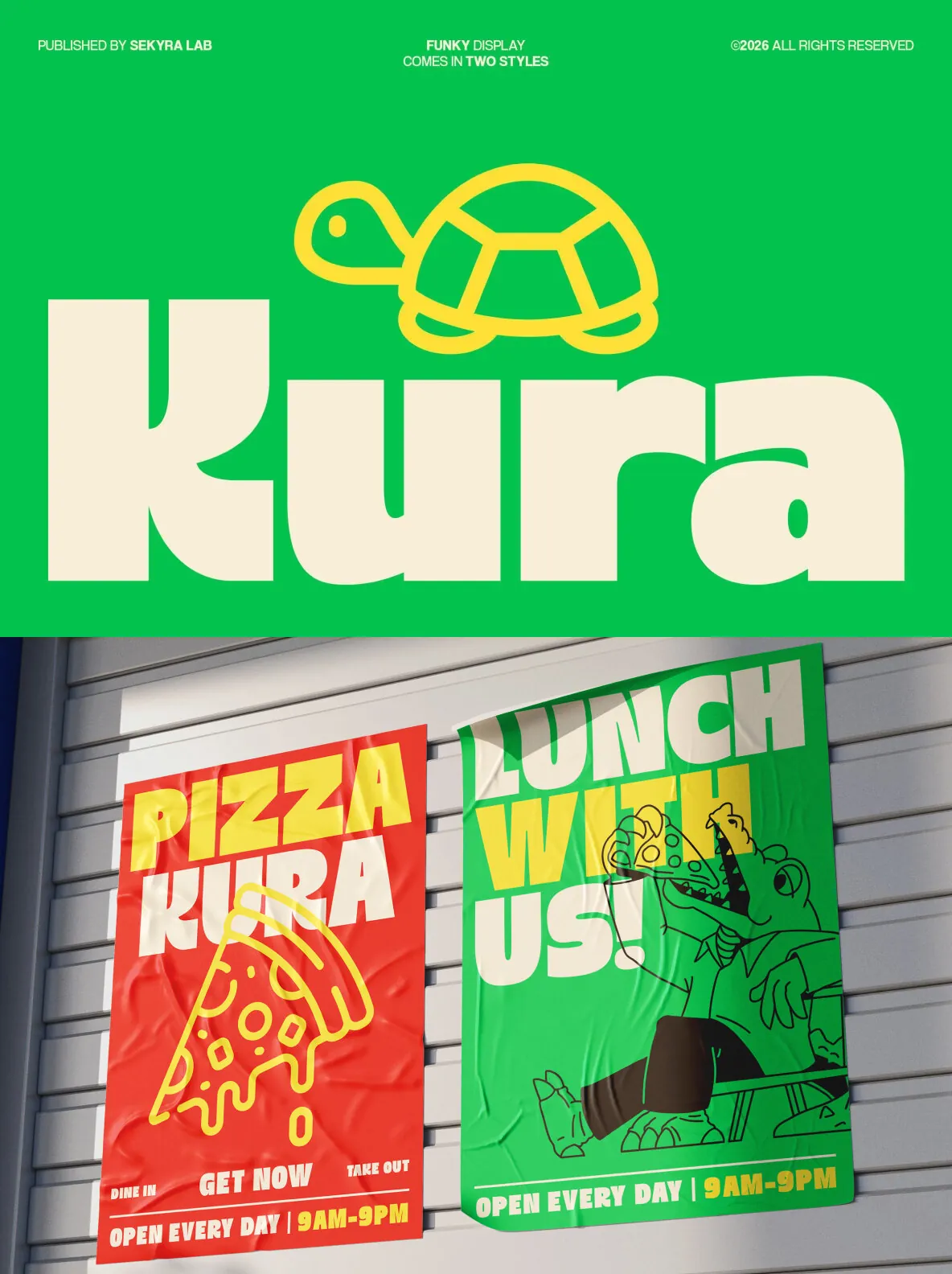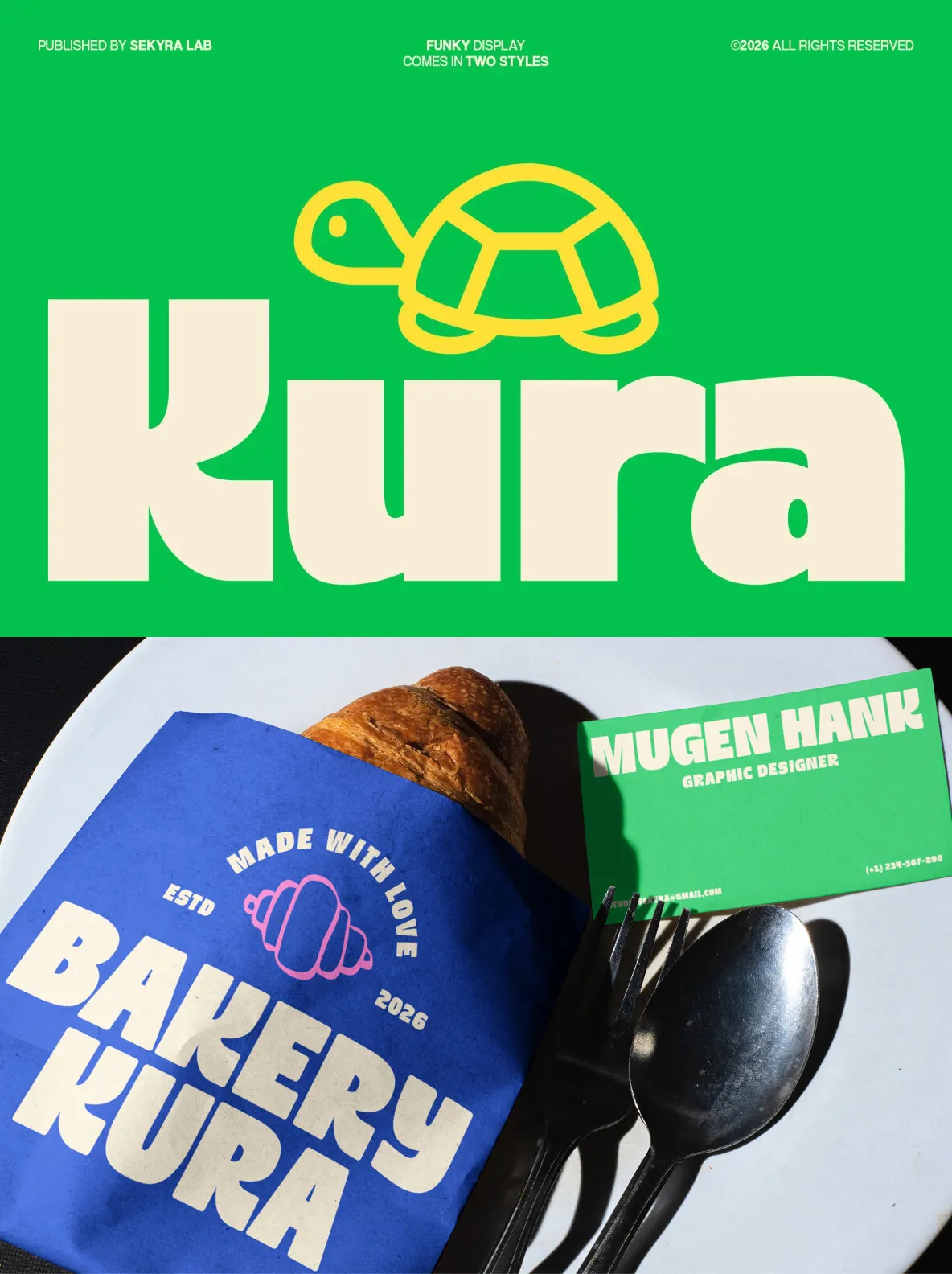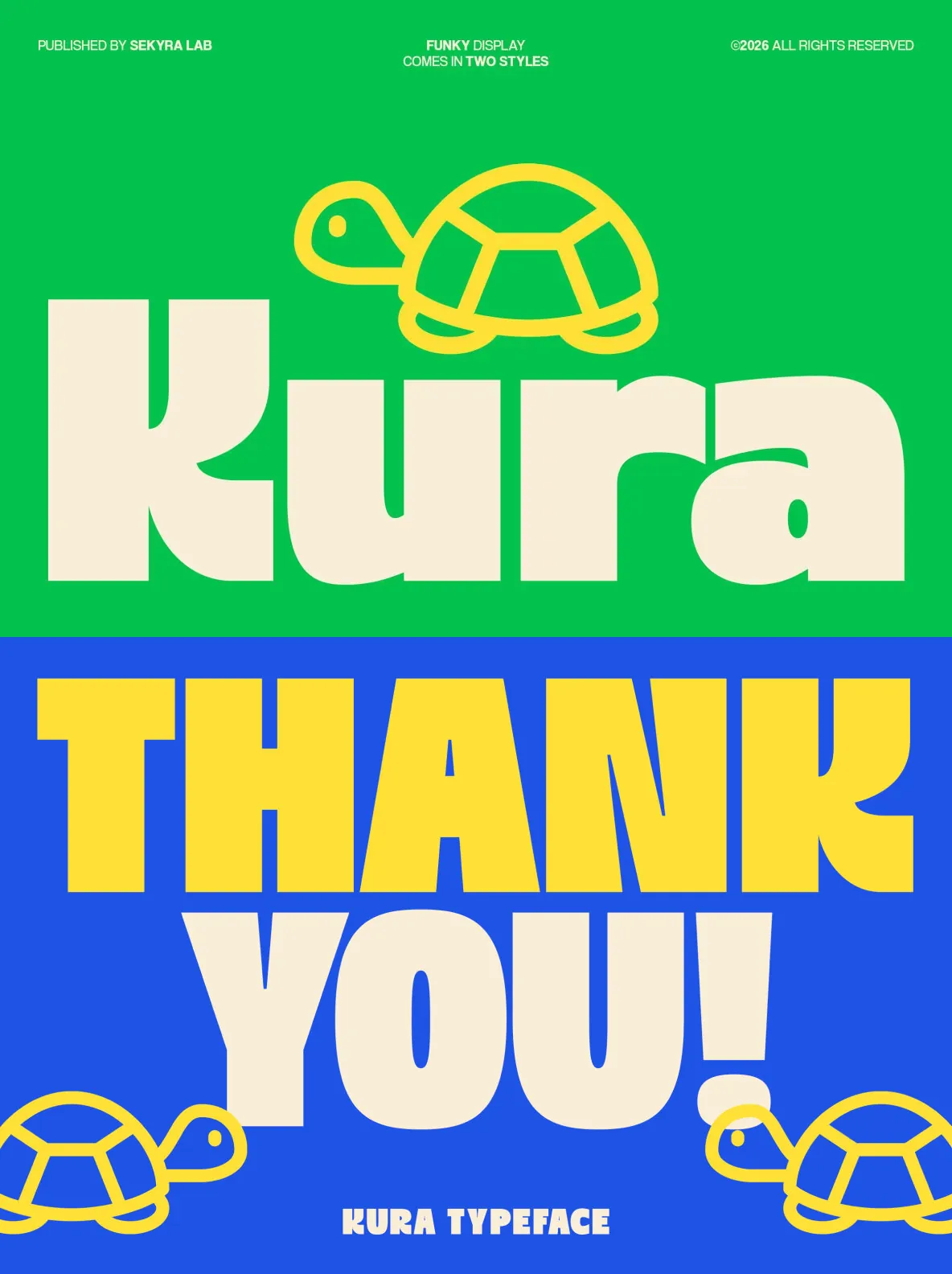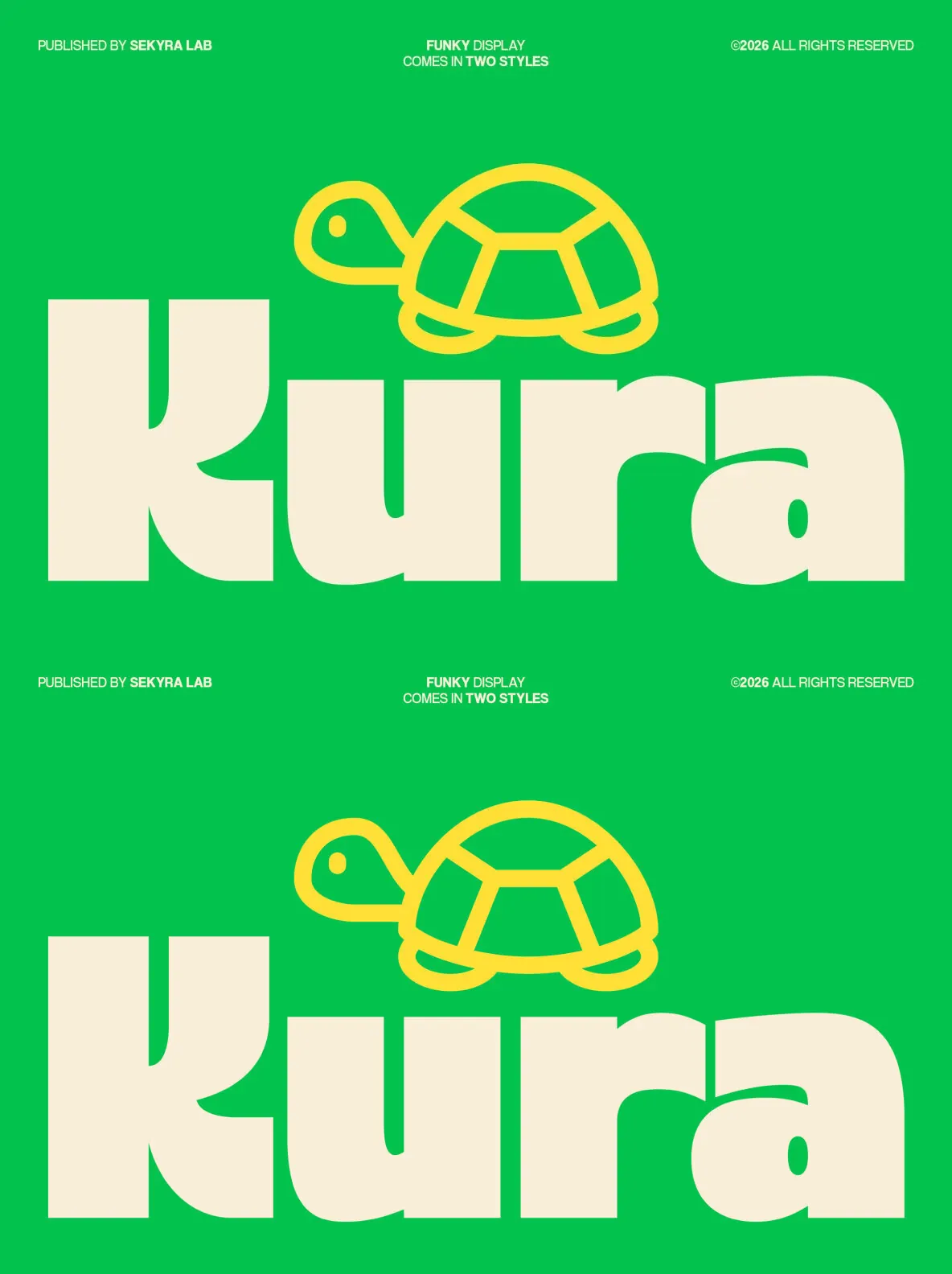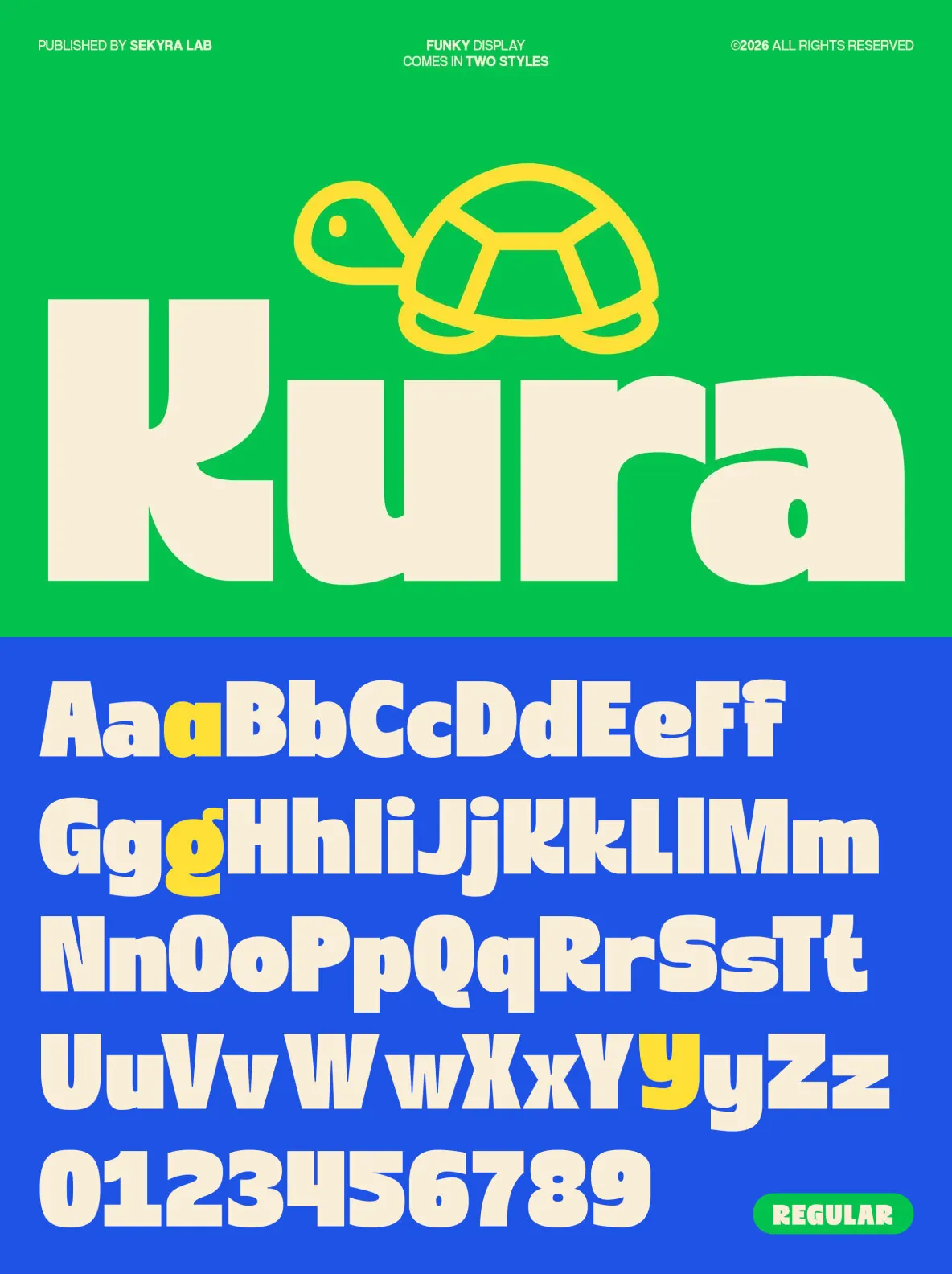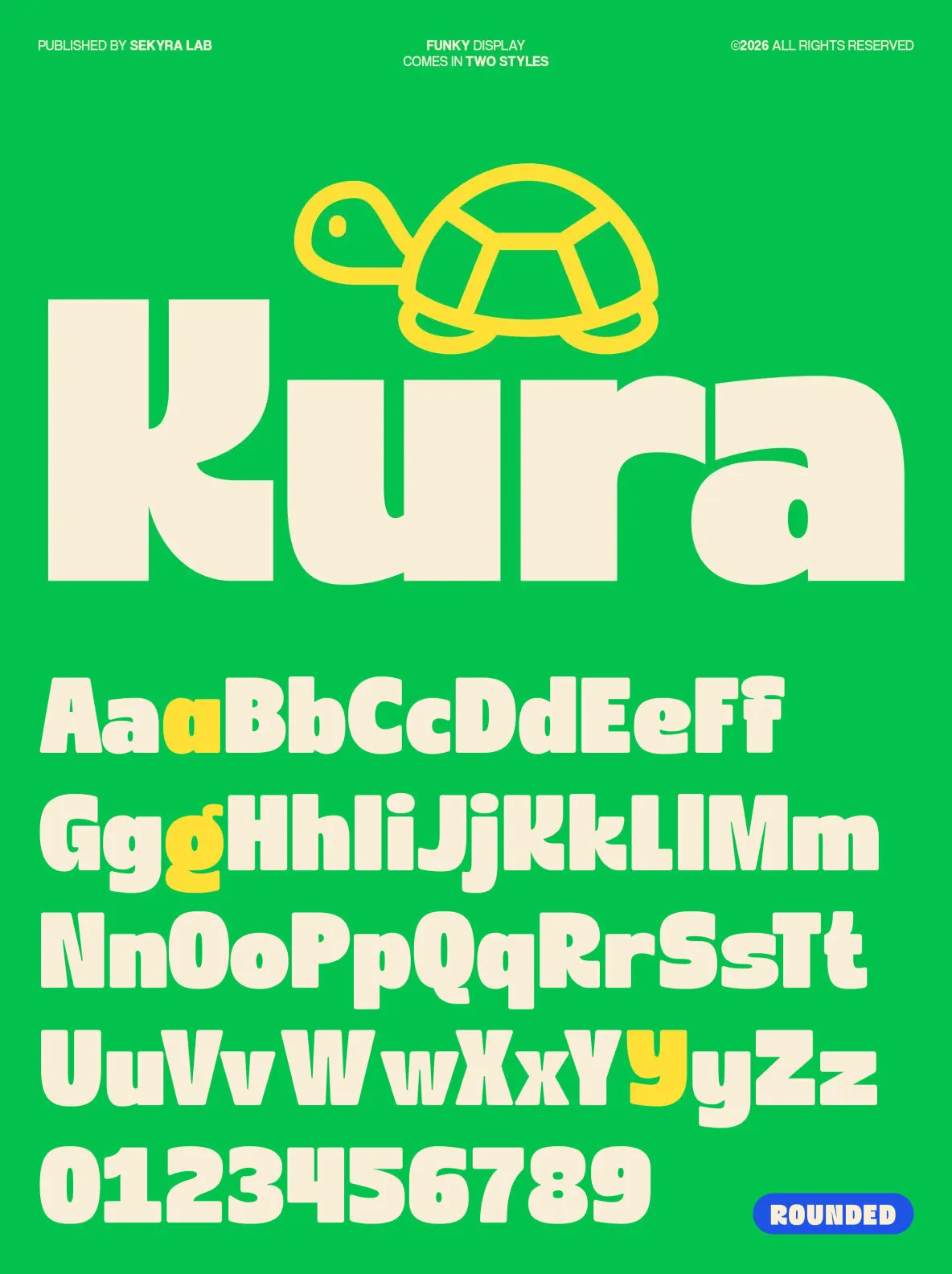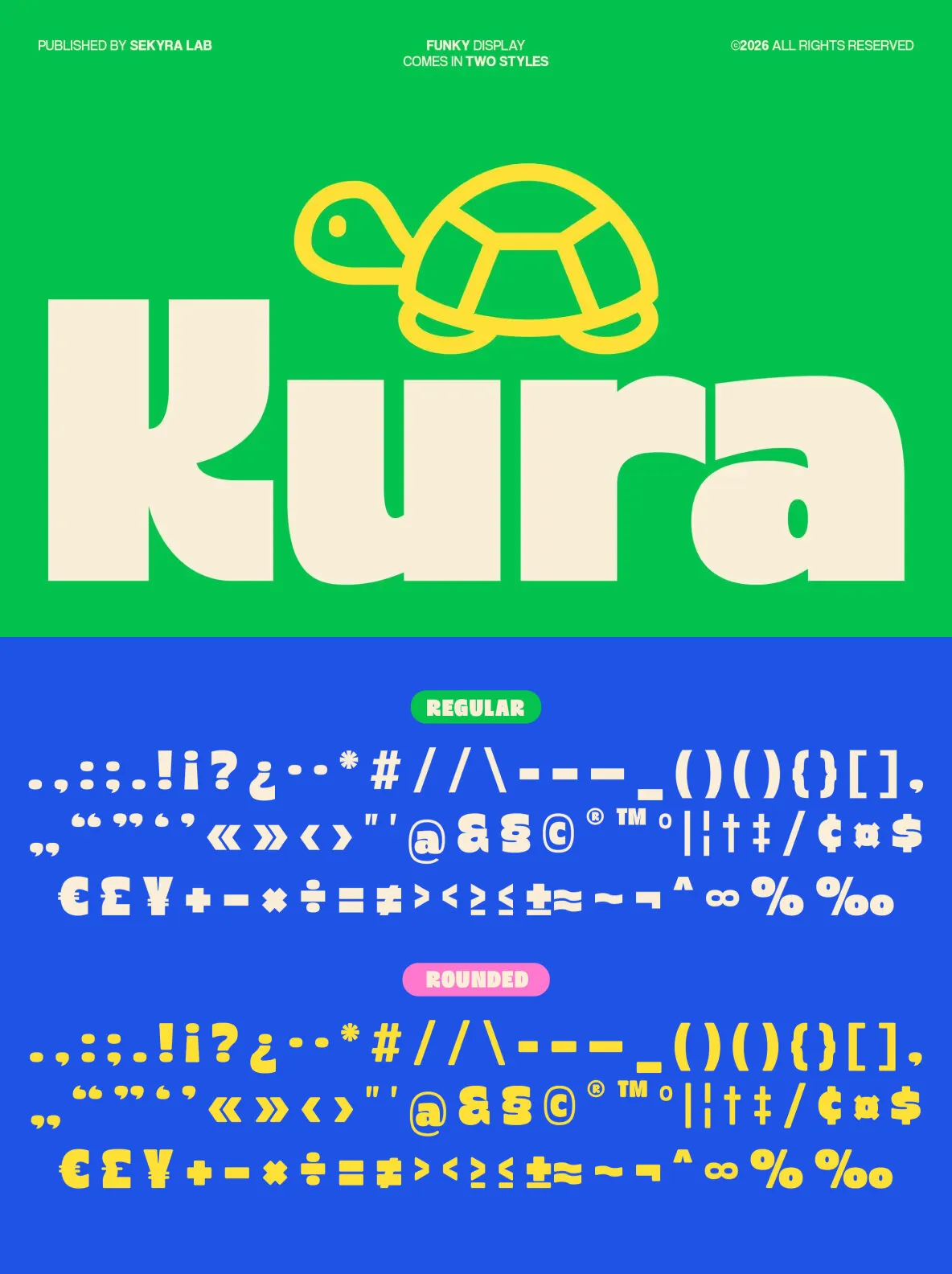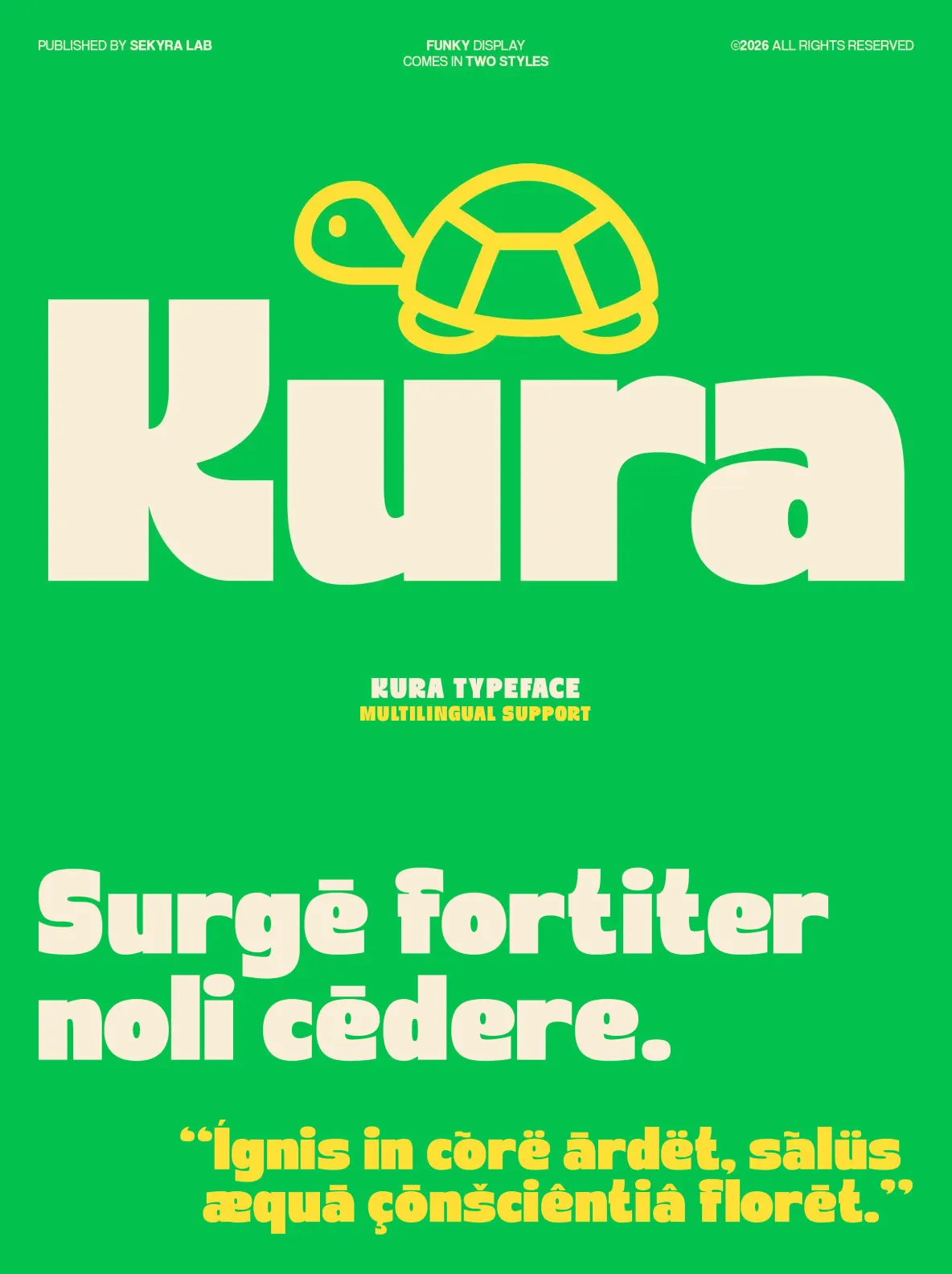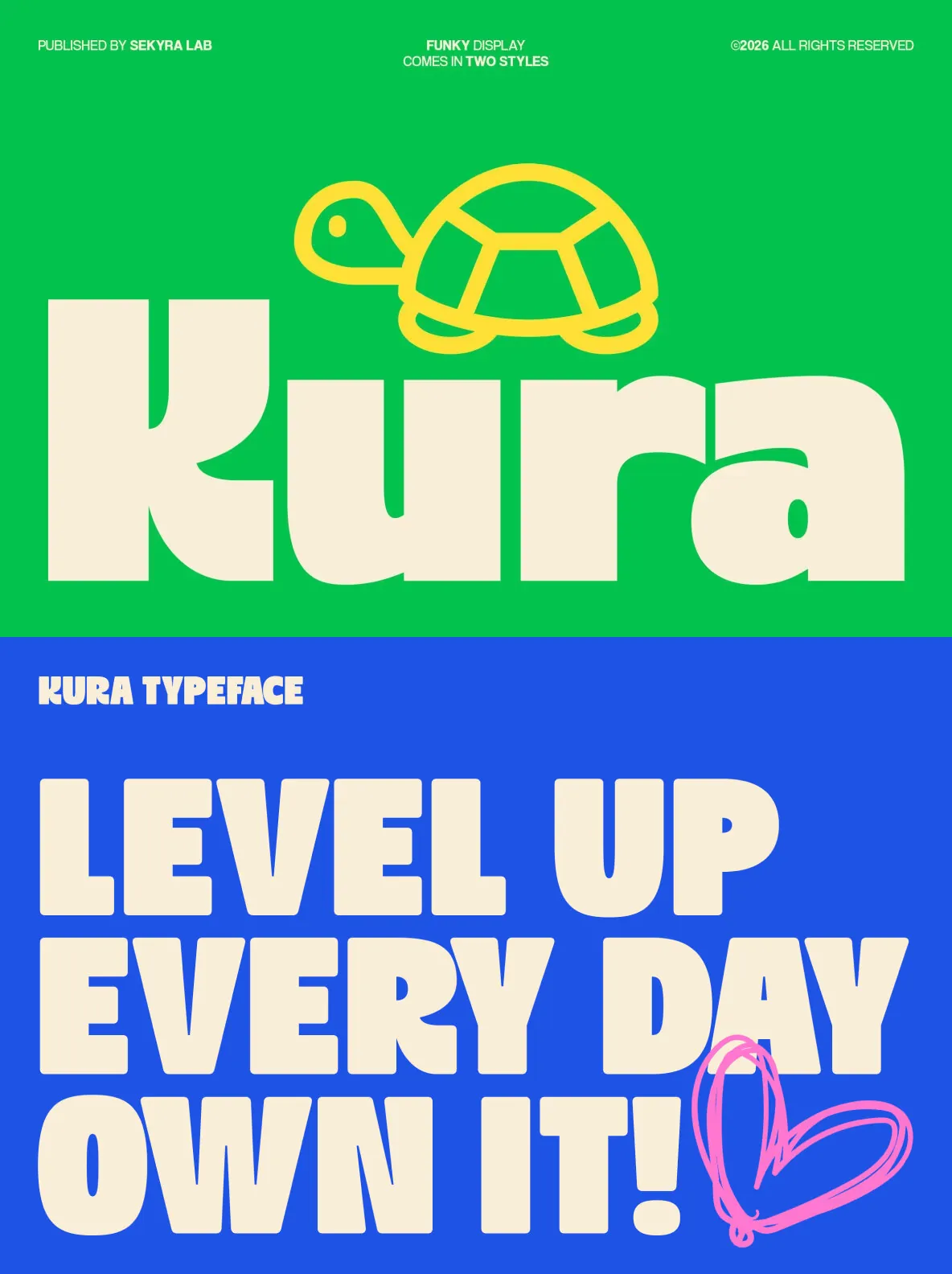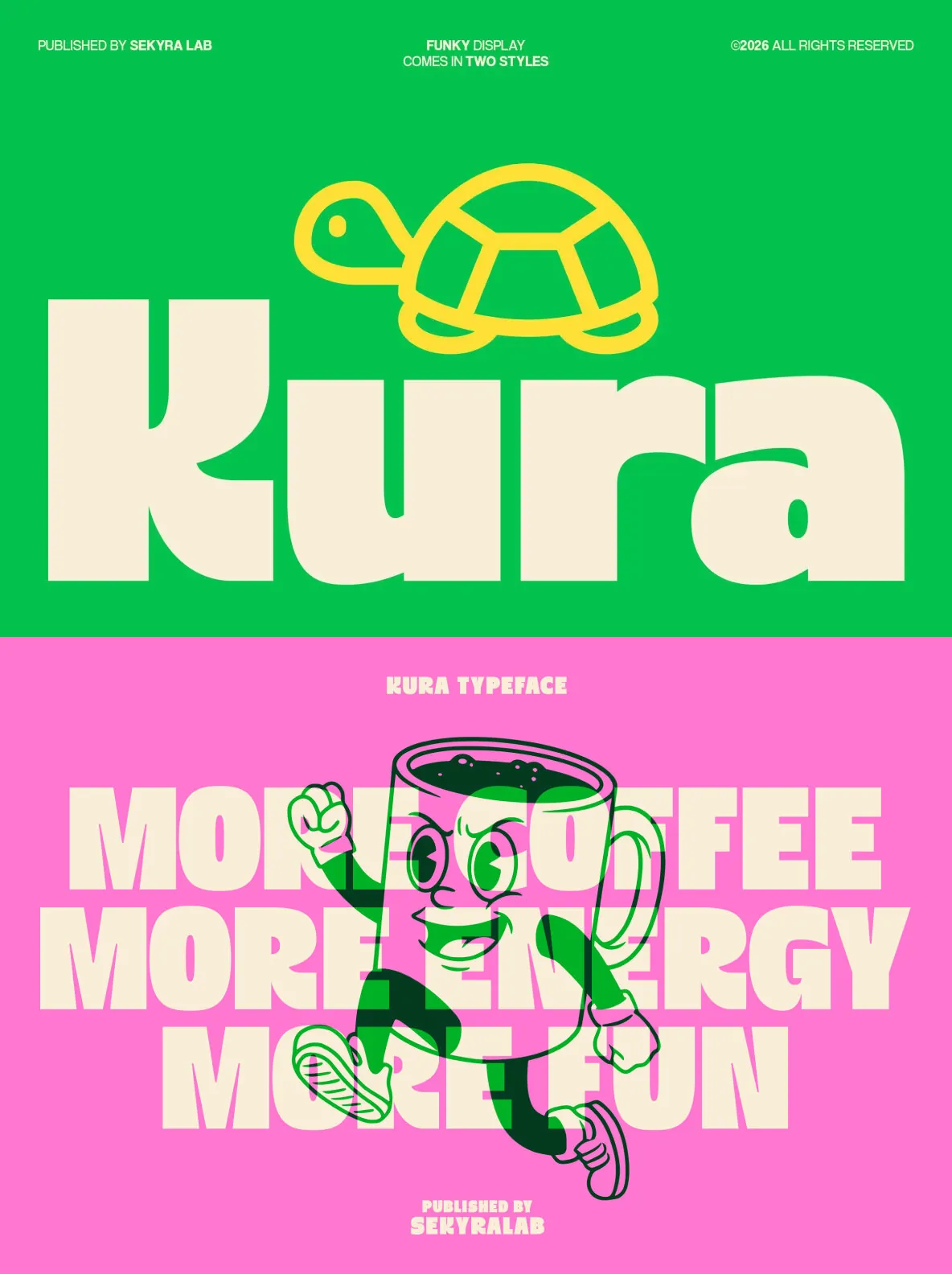
Kura: Bold Display Typeface in Regular and Rounded Styles
Kura is a bold display typeface built for graphic designers who want loud shape, clear rhythm, and a little mischief in the letterforms. Its chunky proportions and soft curves land somewhere between retro signage and modern minimalism, so it can read as playful without feeling messy. Use Kura when a layout needs a headline that holds the page, or when a brand mark needs confident geometry with approachable character.
Across posters, packaging, and social content, Kura keeps its voice even at smaller headline sizes, where many novelty faces fall apart. The structure stays legible, with generous counters and consistent weight that supports clean compositions as well as more expressive, street-style graphics. If you work across multiple applications—logo types, campaigns, and modular identity systems—this bold display typeface offers a dependable core while still delivering personality.
Two styles: Regular and Rounded
Regular: clean, bold structure with confident geometric weight for headlines, logo types, posters, and brand identities
Rounded: softer terminals and curved edges for kids branding, lifestyle products, packaging, social graphics, and cheerful visual systems
Chunky proportions and soft curves that balance retro charm with modern simplicity
Strong presence and readability suited to headline-led layouts